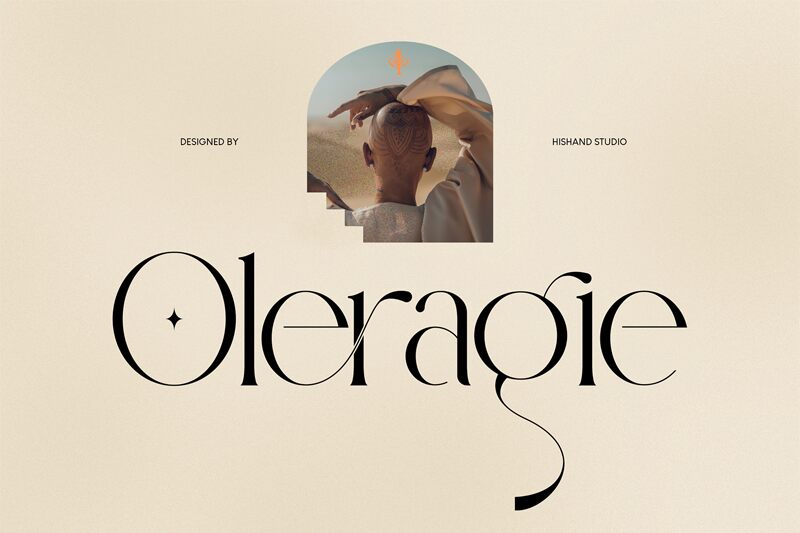
Oleragie is a captivating serif font that exudes a sense of elegance and refinement. Designed by Hishand Studio, this light-weight typeface boasts a sophisticated, yet approachable aesthetic. The sharp, clean lines and subtle curves create a harmonious balance, making Oleragie an ideal choice for a wide range of design applications, from high-end editorial content to premium branding and packaging.
Its versatility shines through in its ability to convey both sophistication and warmth, making it a versatile tool for designers seeking to elevate their projects with a touch of timeless charm.
Oleragie